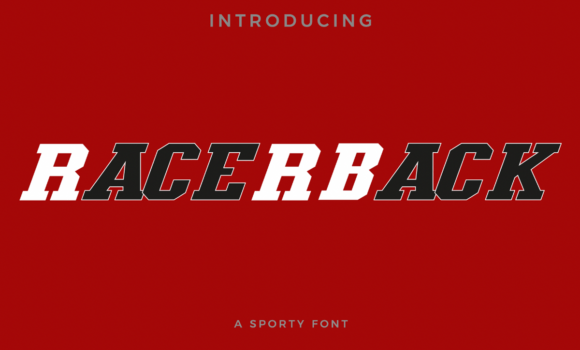
Racerback Font – Free Download Introduction to Racerback Font Introducing Racerback: An unparalleled athletic-inspired font that captures the spirit of competition and camaraderie that is emblematic of sports in college and university environments. 📸 Preview Gallery 1 image 📌 Product